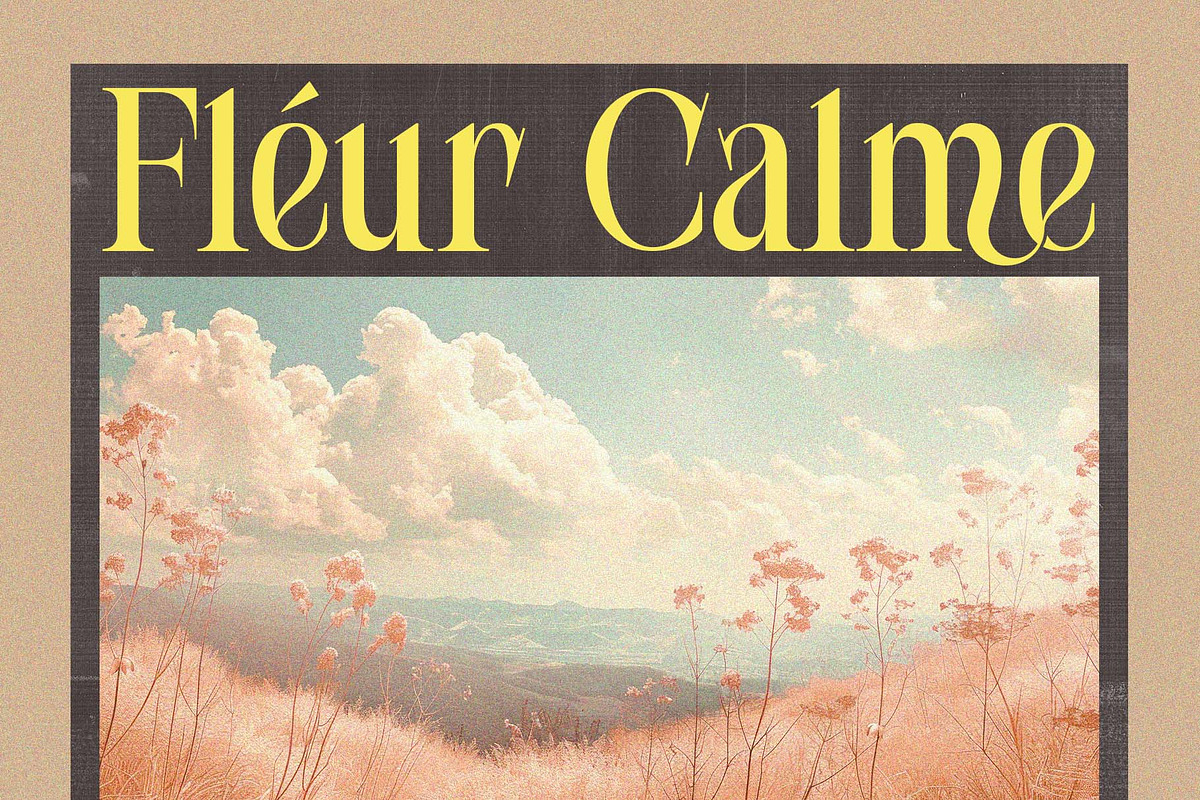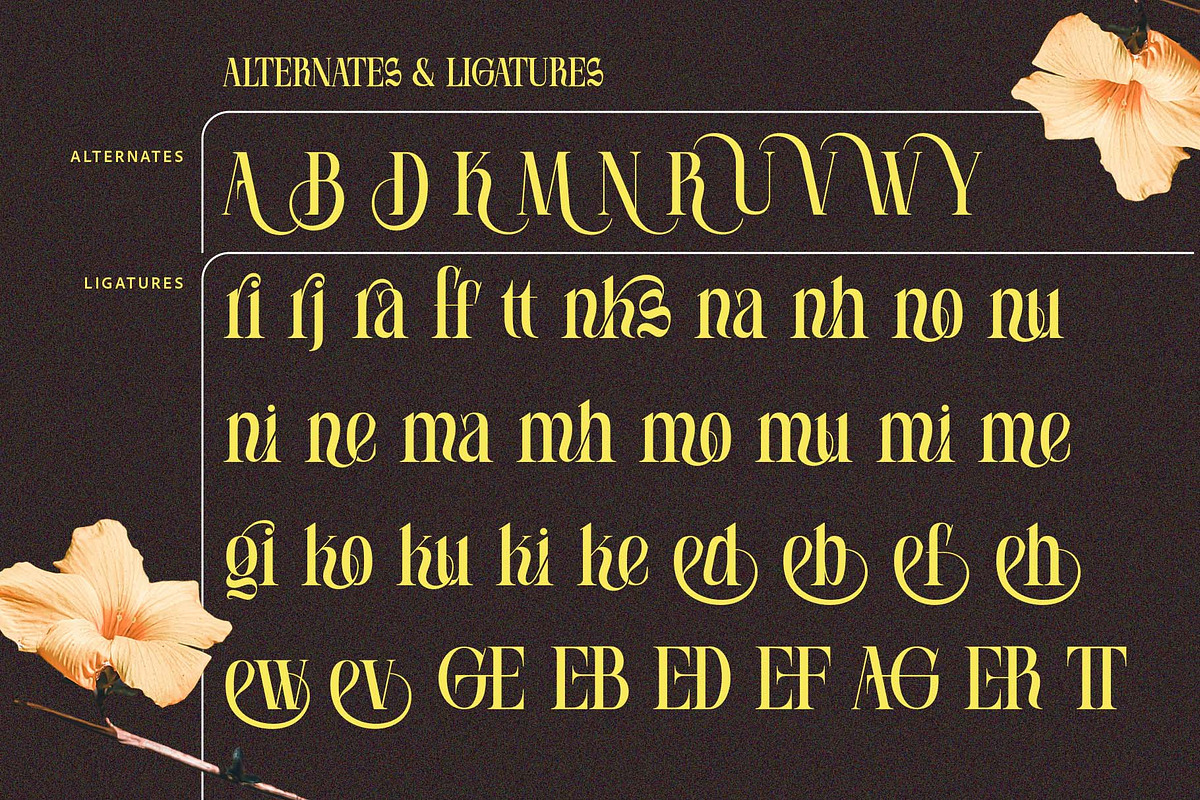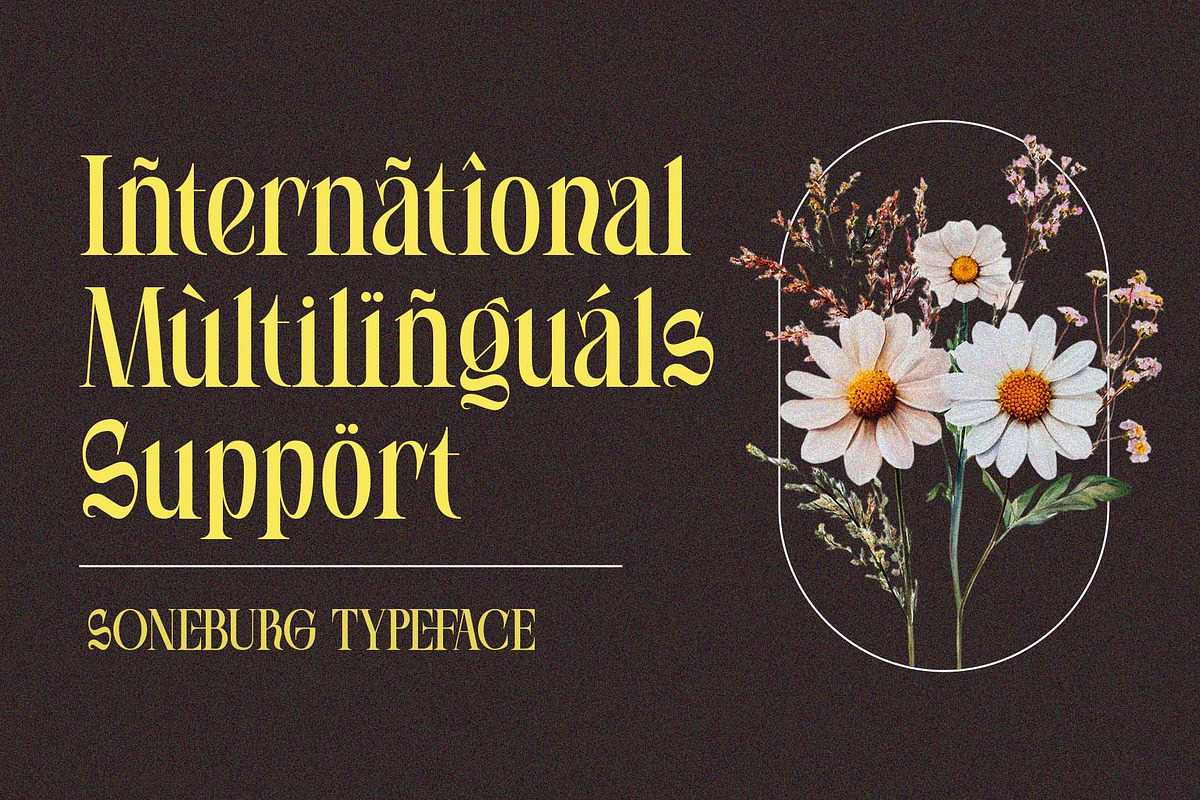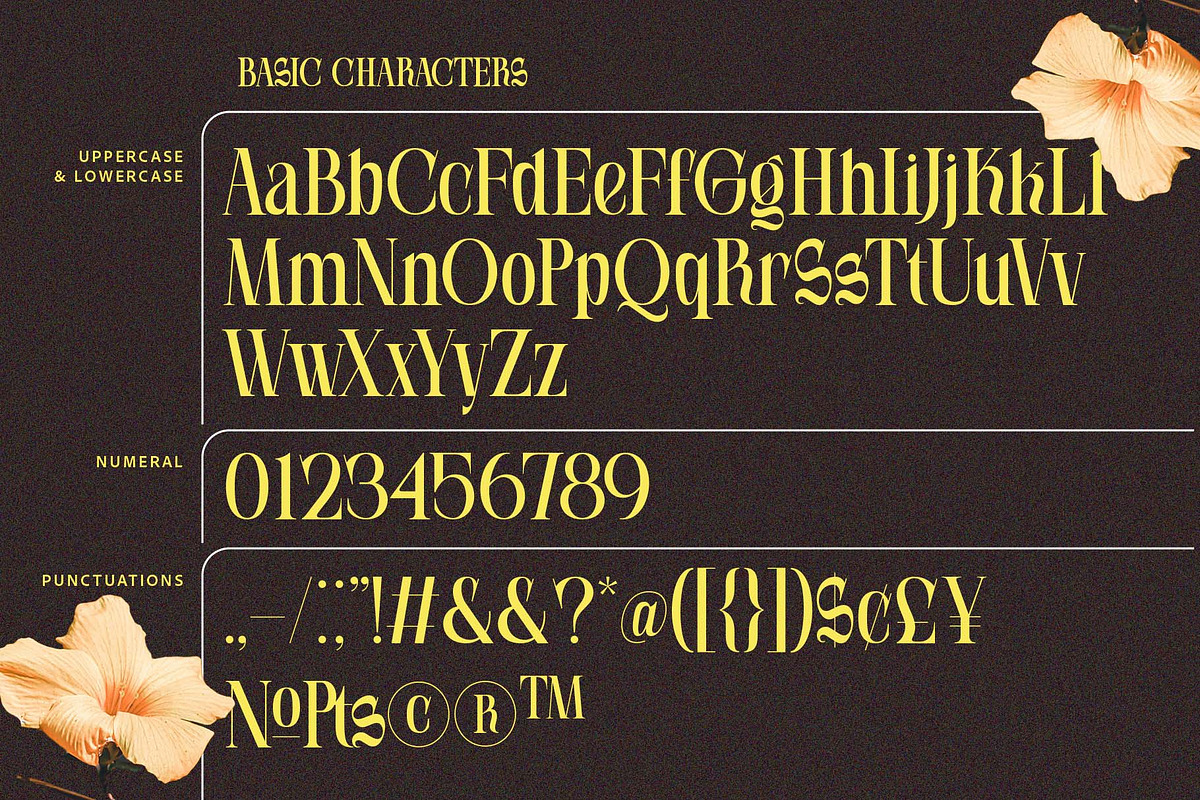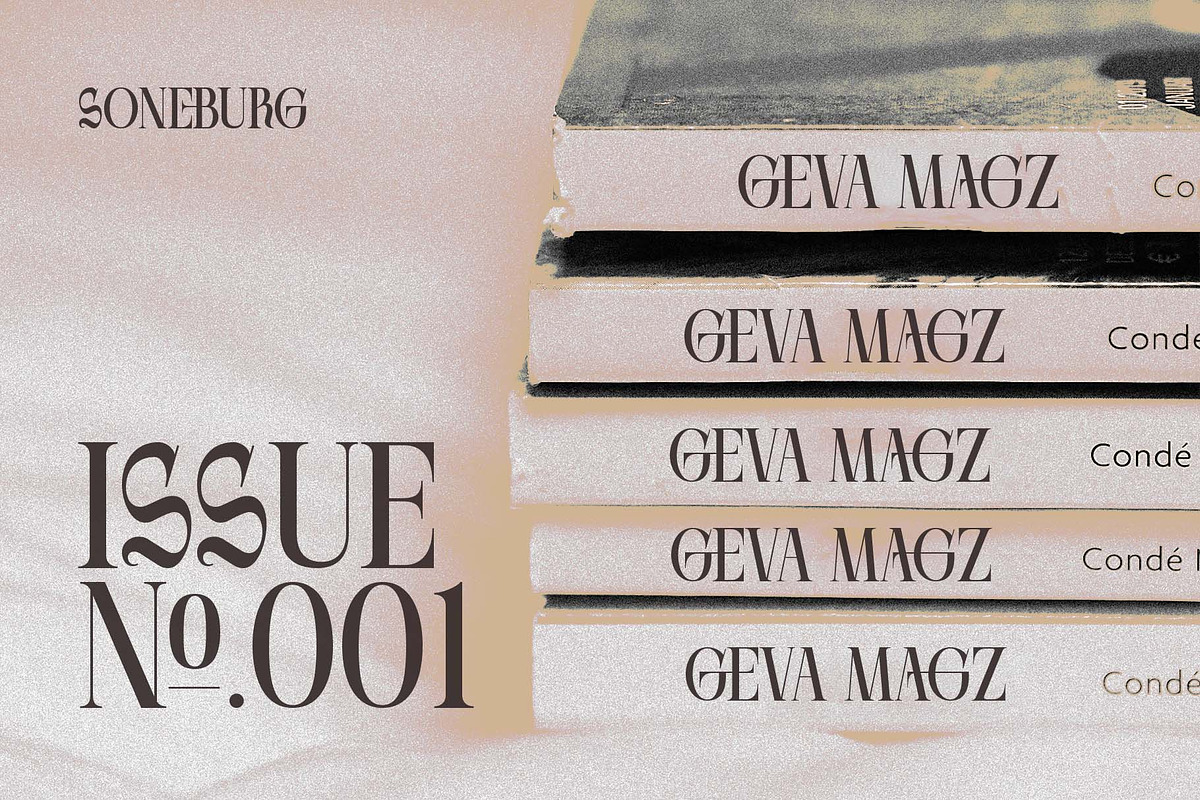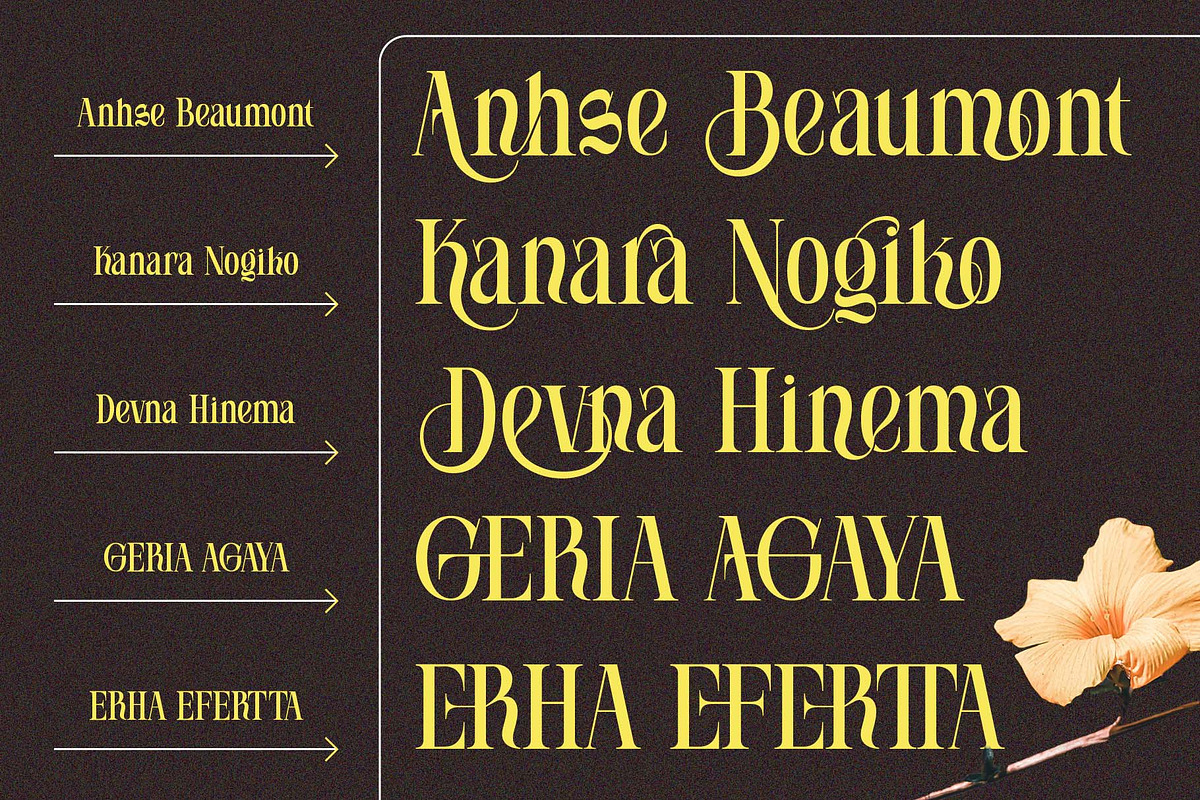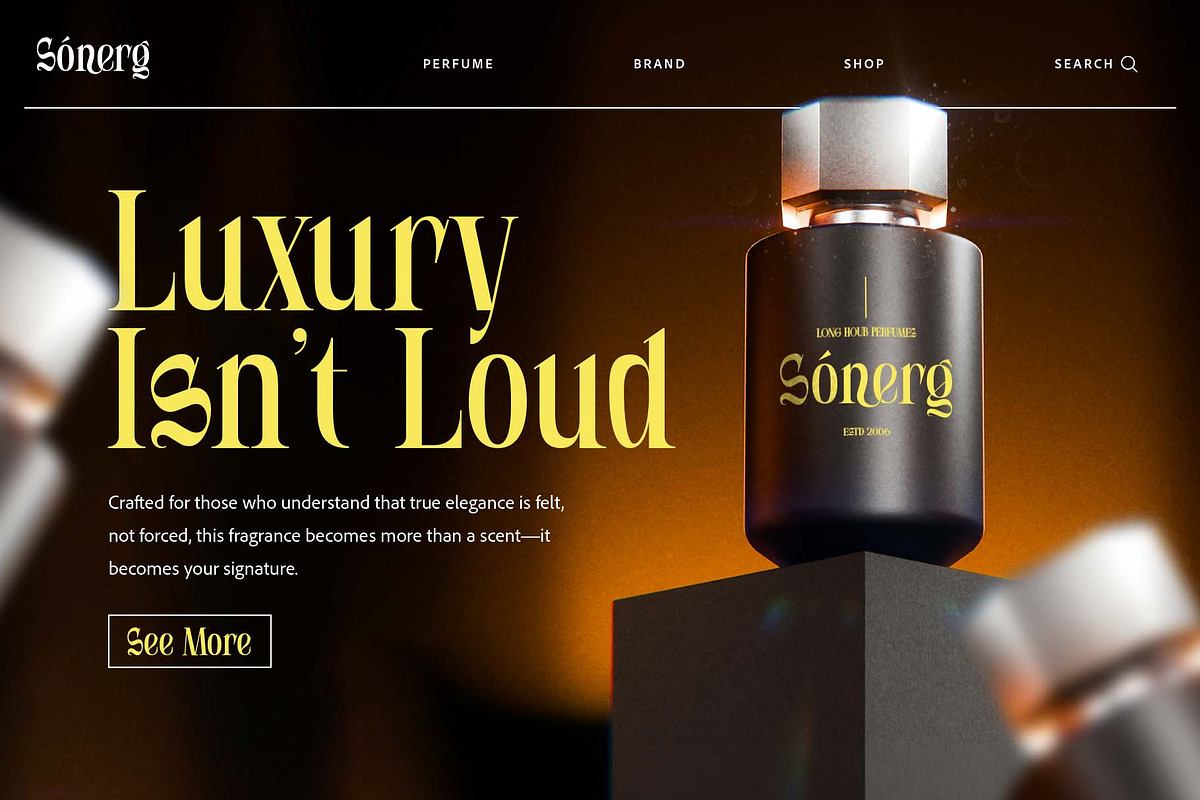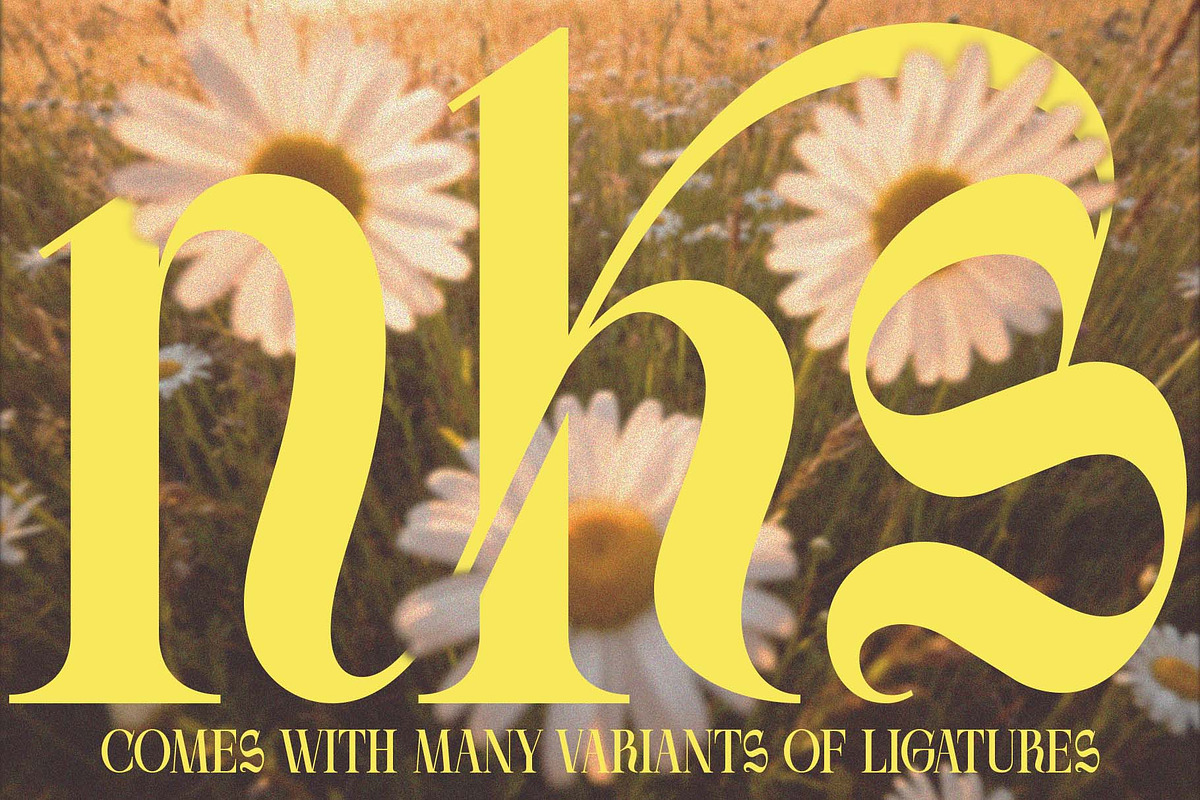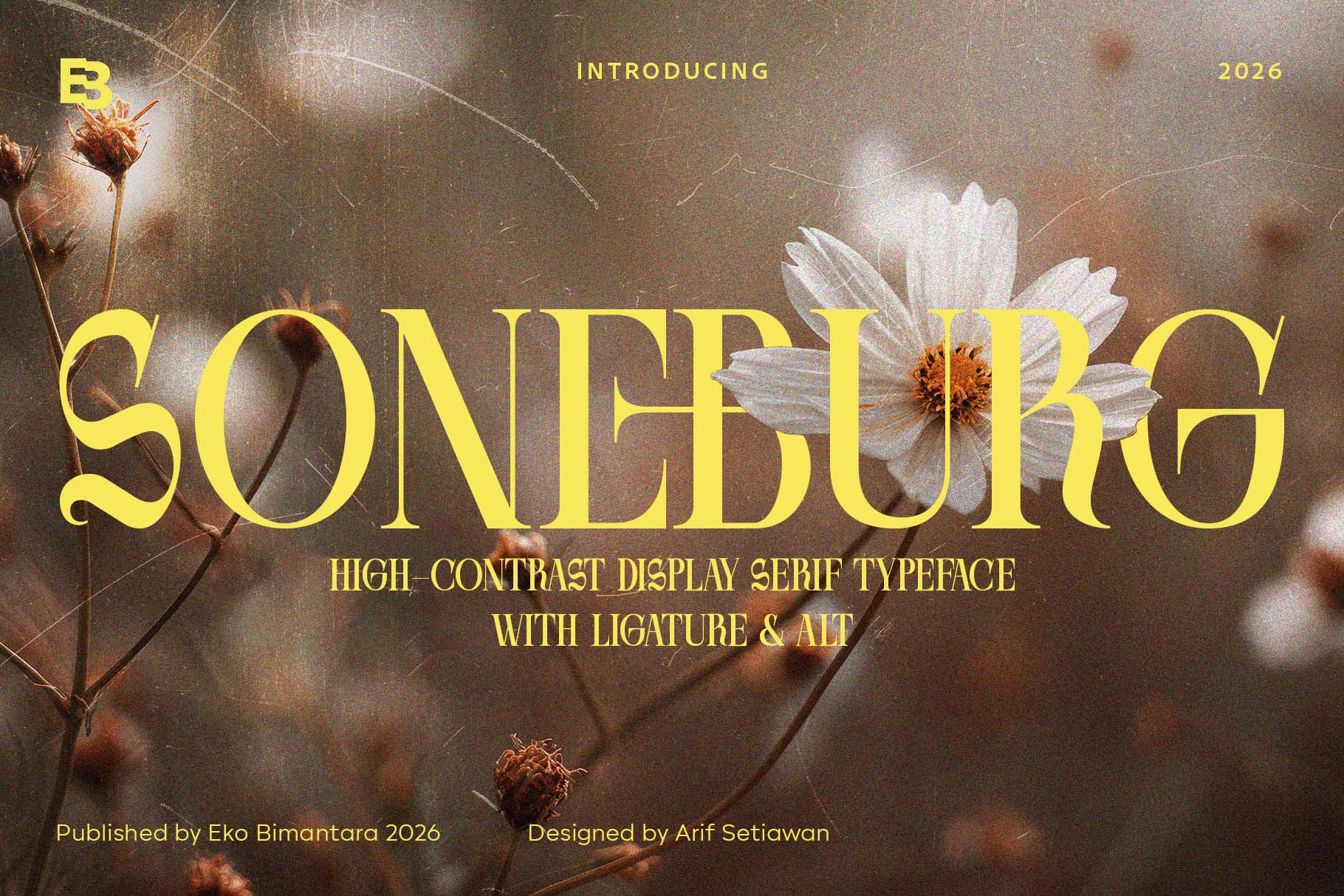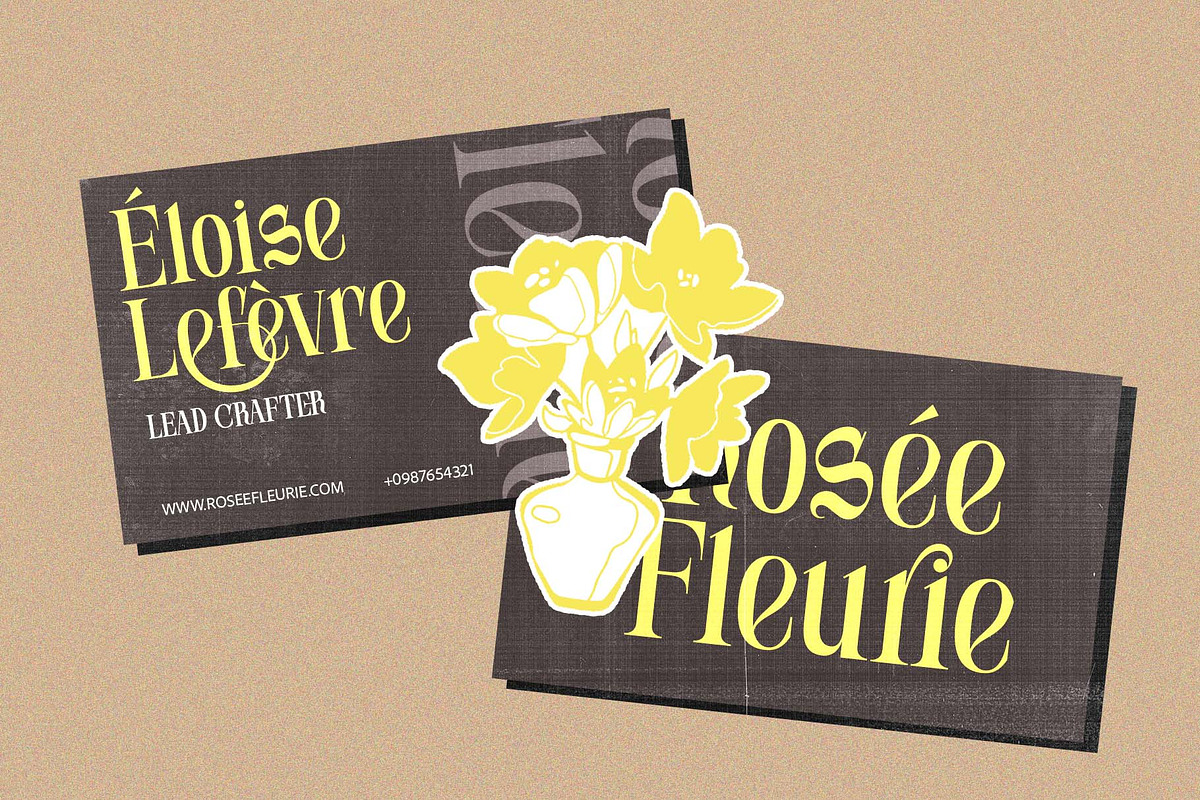
Soneburg; Display Serif Font
Soneburg is a refined high-contrast display serif that blends timeless elegance with expressive contemporary character. Designed with graceful curves, razor-sharp serifs, and sophisticated proportions, this typeface delivers a luxurious visual presence ideal for premium branding, editorial headlines, fashion campaigns, packaging, and artistic typography. Its distinctive ligatures and alternate characters add a unique rhythmic flow, allowing designers to craft striking compositions with elevated personality and style. Soneburg balances classic serif sophistication with modern dramatic flair, making it a perfect choice for projects that demand beauty, confidence, and high-end visual impact.